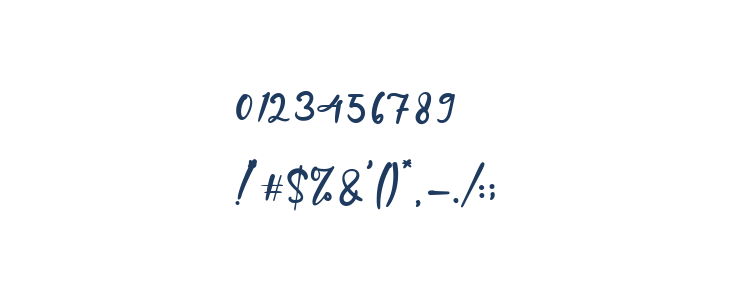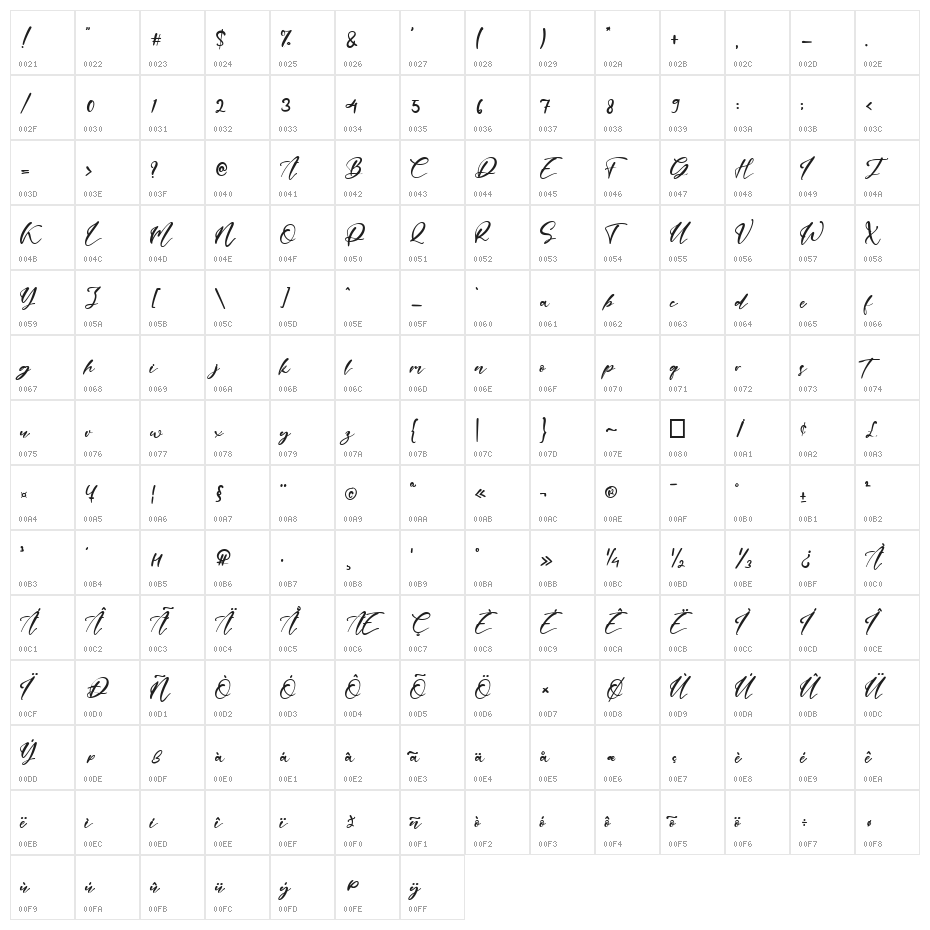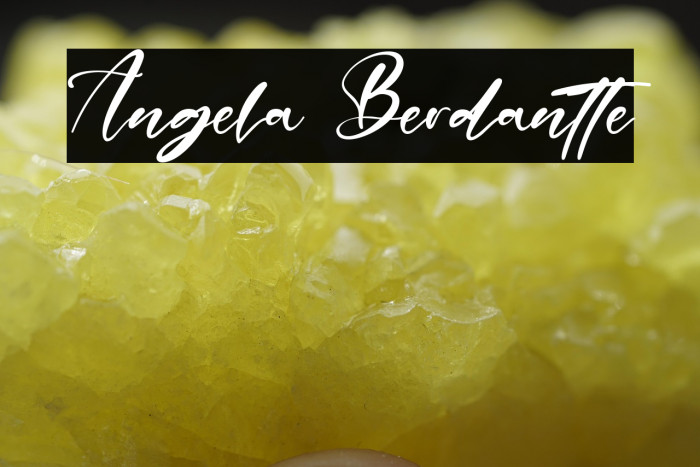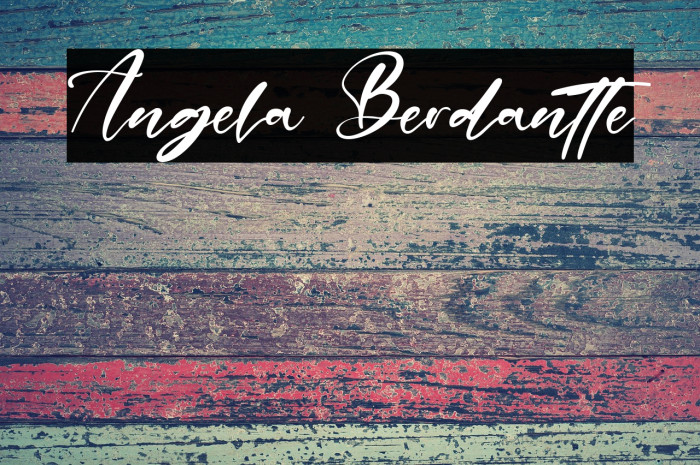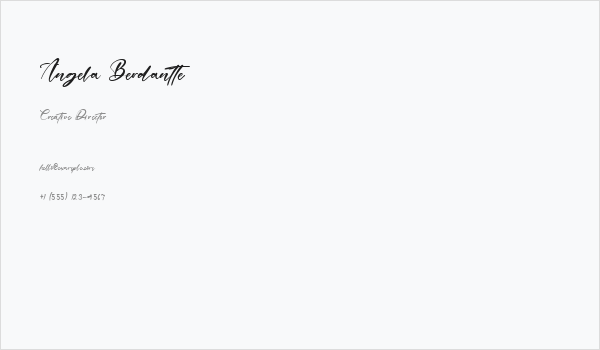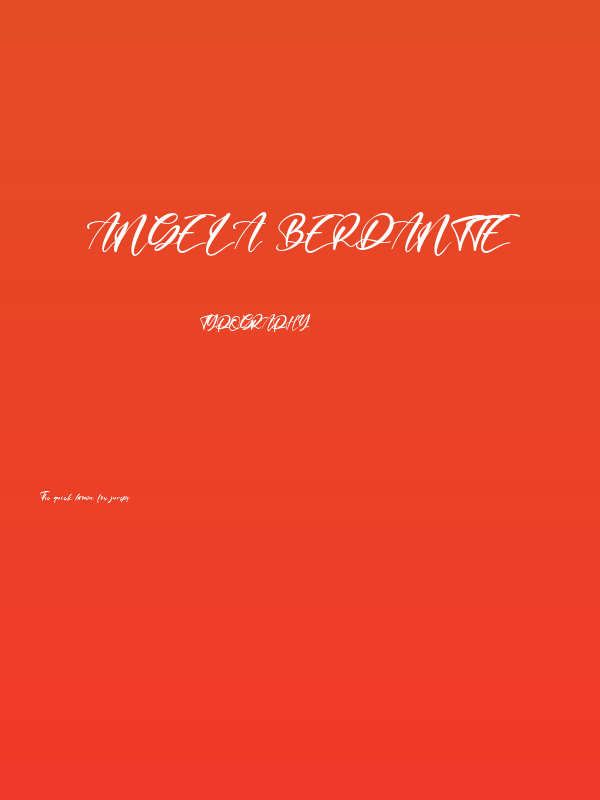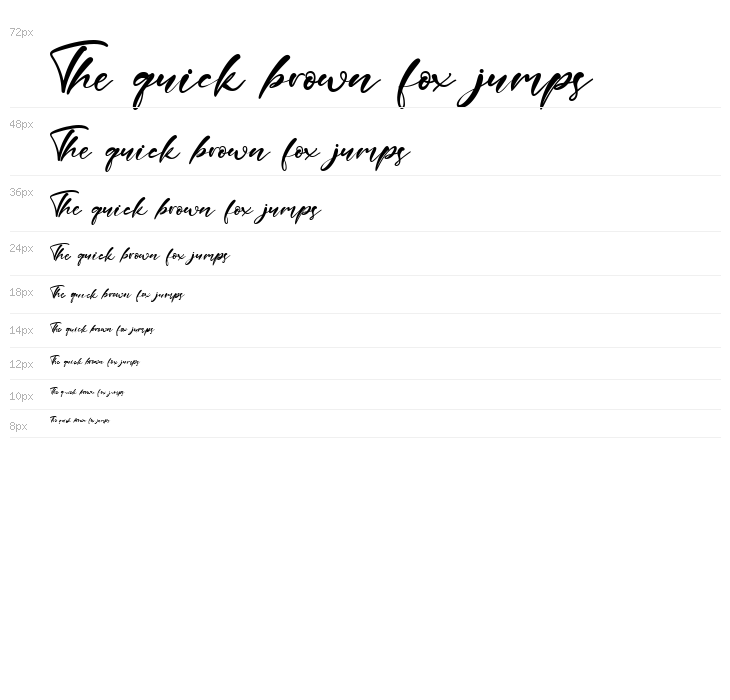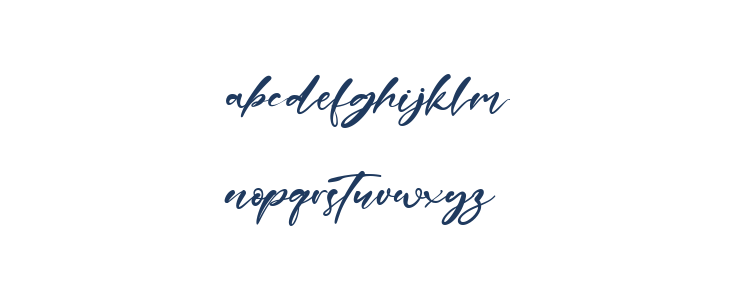
Angela Berdantte Font
Angela Berdantte Description
This font exudes a sense of elegance and fluidity, characterized by its cursive, handwritten style. The letters are connected in a flowing manner, giving it a natural and organic feel. The strokes vary in thickness, adding a dynamic contrast that enhances its visual appeal. The uppercase letters are bold and prominent, while the lowercase letters maintain a consistent flow, making it suitable for artistic and decorative purposes. The numerals and special characters are crafted with the same attention to detail, ensuring a cohesive look across all elements.